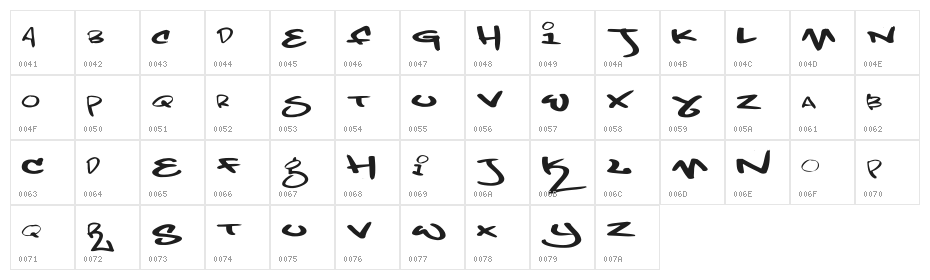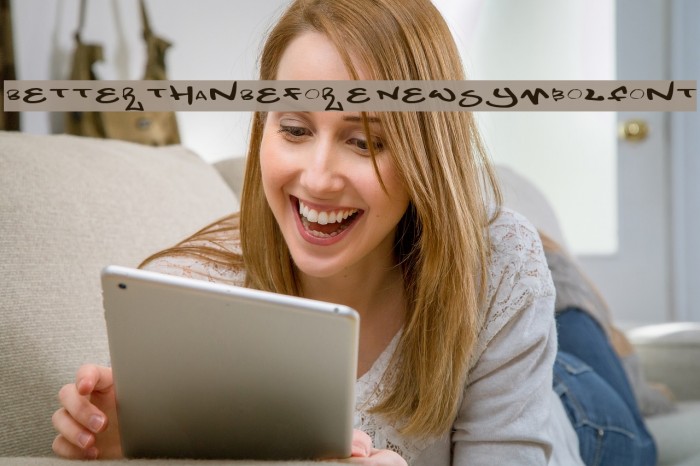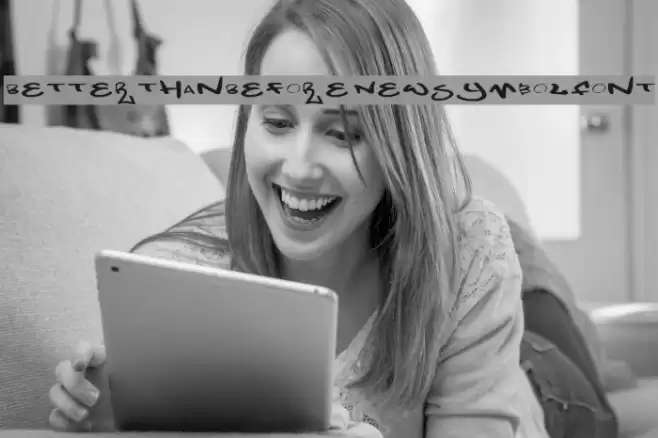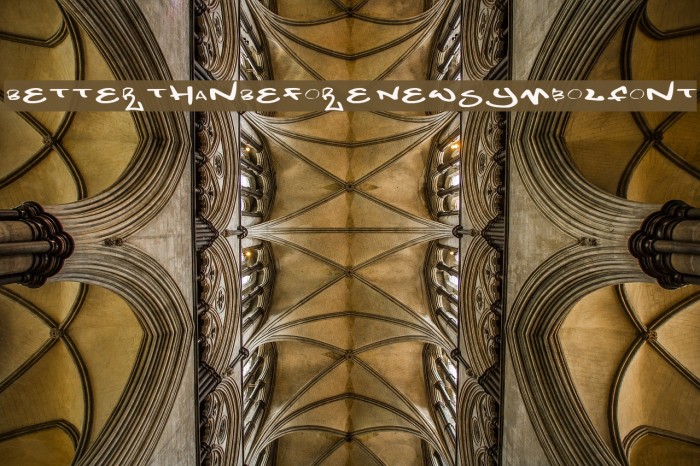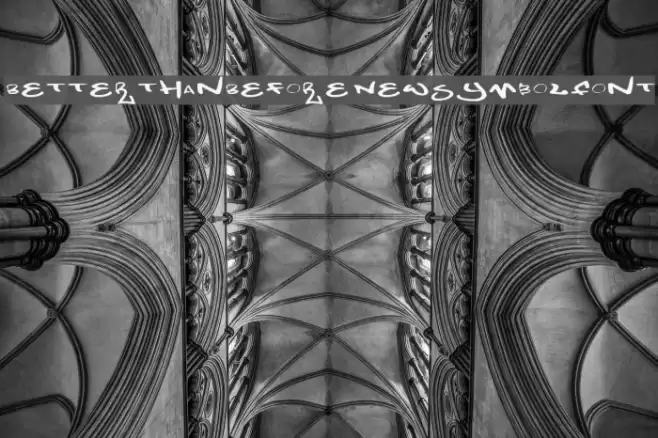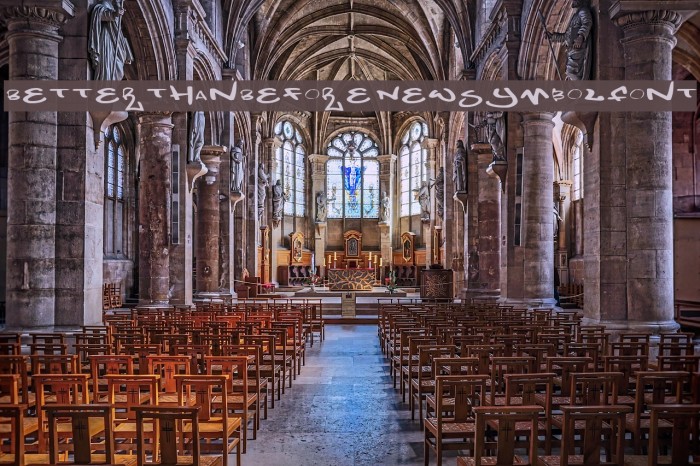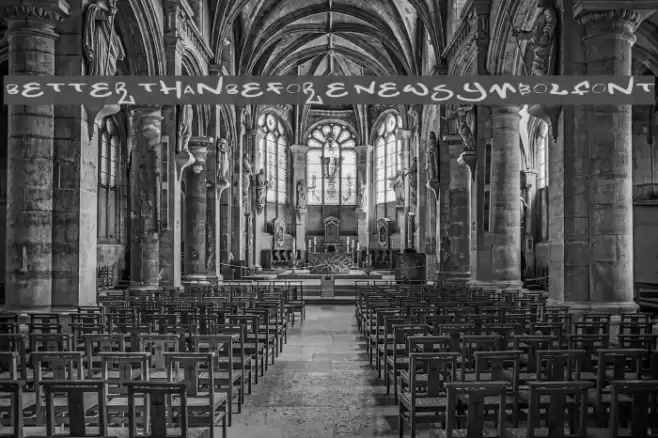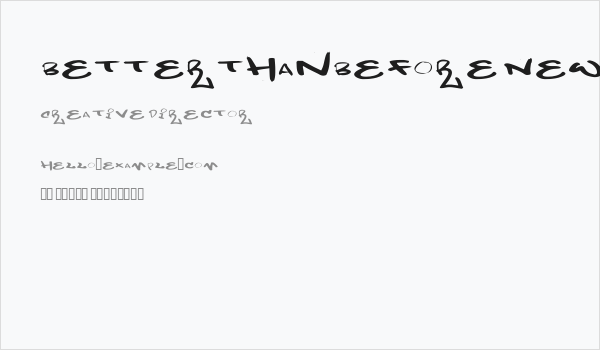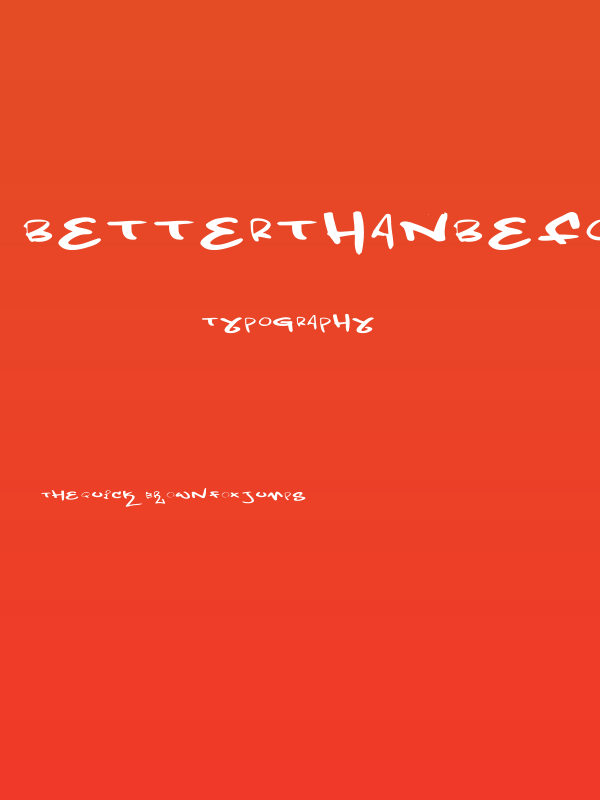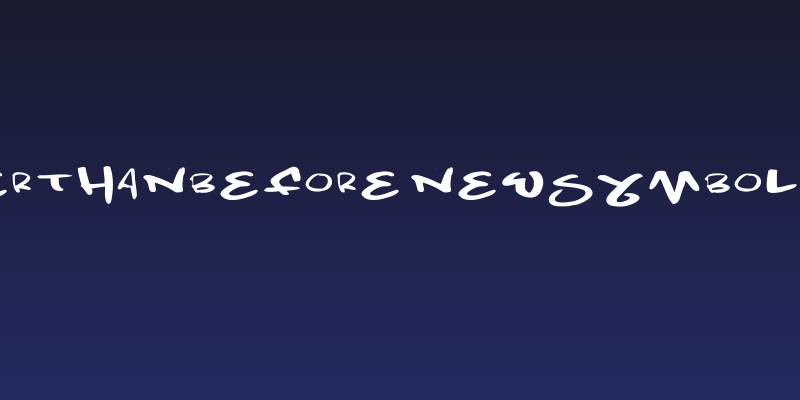
BetterthanBefore NewSymbolFont5 Font
BetterthanBefore NewSymbolFont5 Description
This font features a dynamic and expressive handwritten style, characterized by its fluid, cursive strokes and playful, artistic flair. The uppercase and lowercase letters exhibit a consistent flow, with some letters having exaggerated loops and curves that add a sense of movement and energy. The font maintains a casual yet sophisticated appearance, making it suitable for creative and informal applications. The numerals and special characters are designed to match the overall aesthetic, ensuring a cohesive look across all text elements. The font's unique style makes it stand out, offering a fresh and modern take on traditional handwritten fonts.